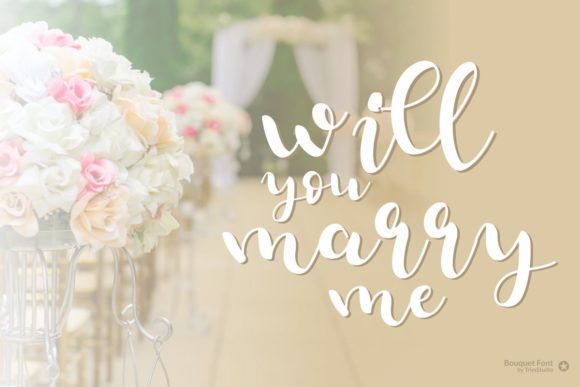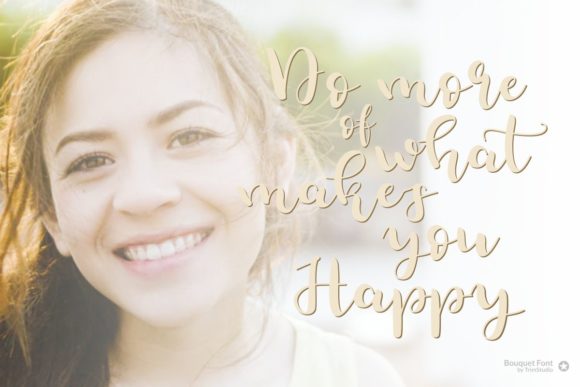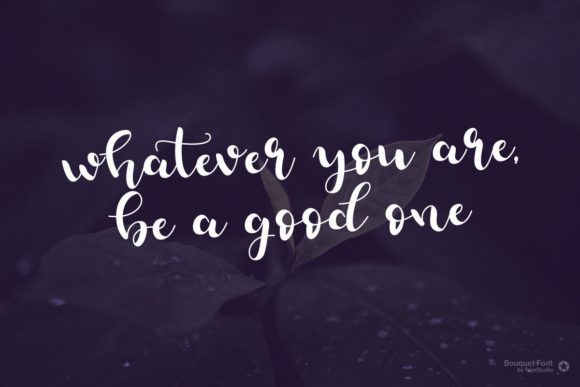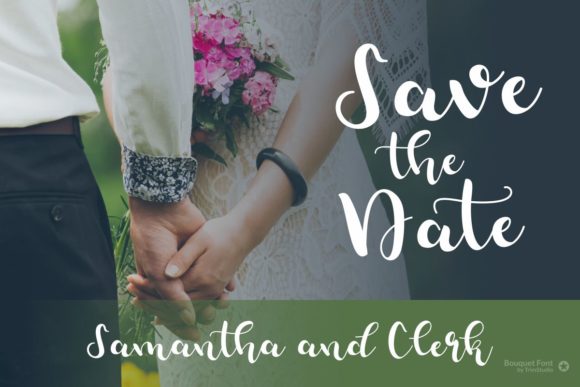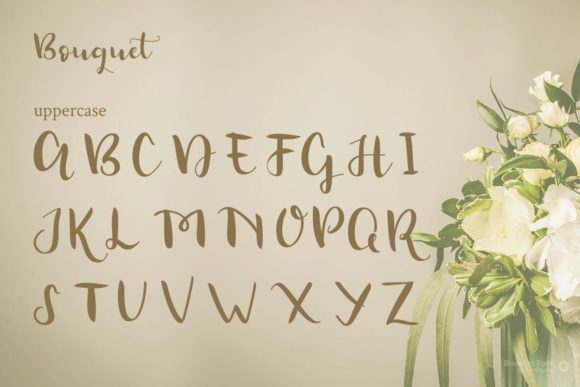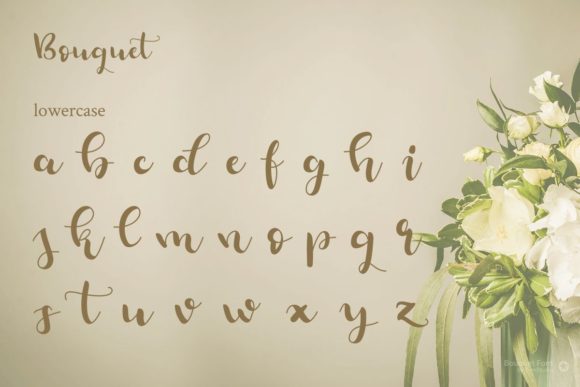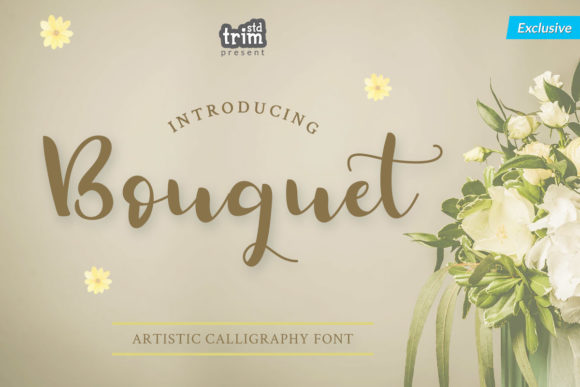
The Bouquet Font: A Playful and Gorgeous Hand-Written Delight
I’ll never forget the moment I stumbled upon the Bouquet font while working on a whimsical wedding invitation project. My client wanted a design that captured the essence of a romantic garden party, complete with lush florals and elegant script. As I scrolled through font after font, nothing seemed quite right – until I saw Bouquet. Its playful, hand-written charm instantly won me over, and I knew I had found the perfect fit.
- Unique, hand-written aesthetic that’s perfect for creative projects
- Works beautifully for logos, social media posts, quotes, and invitations
- Supports OpenType features, glyphs, and stylistic alternates for added versatility
- Easily pairs with a variety of font styles to create stunning contrasts
- Some letters may appear a tad inconsistent in size or spacing, which can affect readability at smaller font sizes
- Limited use of uppercase letters, which might not be ideal for all design applications
- Not the best choice for body text or lengthy paragraphs due to its decorative nature
The Story Behind Bouquet: A Designer’s Inspiration
Bouquet was crafted with love by a talented font designer who aimed to create a beautiful, handwritten font that would bring joy and elegance to any design project. Inspired by lush gardens and vintage floral arrangements, Bouquet embodies a sense of romance and playfulness. Whether you’re designing wedding invitations or social media graphics, Bouquet is sure to add a touch of whimsy and charm.
| Author | Trim Studio |
| What type of projects is Bouquet best suited for? | Bouquet is perfect for creative projects like logos, social media posts, quotes, invitations, and more! |
| Does Bouquet support OpenType features? | Yes, Bouquet supports OpenType features, glyphs, and stylistic alternates, making it a versatile choice for designers. |
| Is Bouquet suitable for body text or lengthy paragraphs? | No, due to its decorative nature, Bouquet is best used for headlines, titles, or short text snippets rather than body text or lengthy paragraphs. |